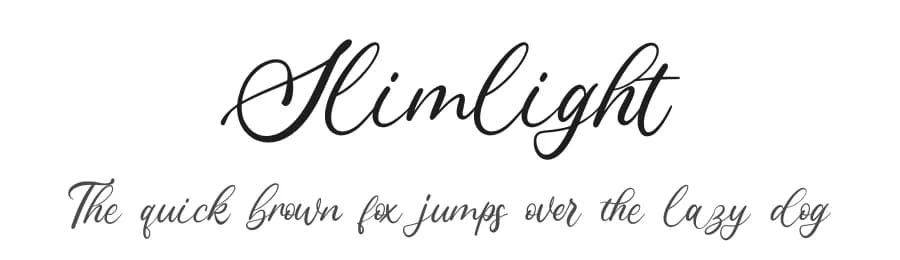
About Slimlight Font
Slimlight ships with 2 OpenType features you can switch on in apps that support them (Illustrator, InDesign, Affinity, Figma, CSS font-feature-settings).
Slimlight supports 217 languages.
Slimlight Font is a script font that shines as a display or heading face. Pair it with a clean sans-serif or serif font for body text β the contrast creates a clear hierarchy while the two styles stay balanced and easy to read.
Slimlight Font